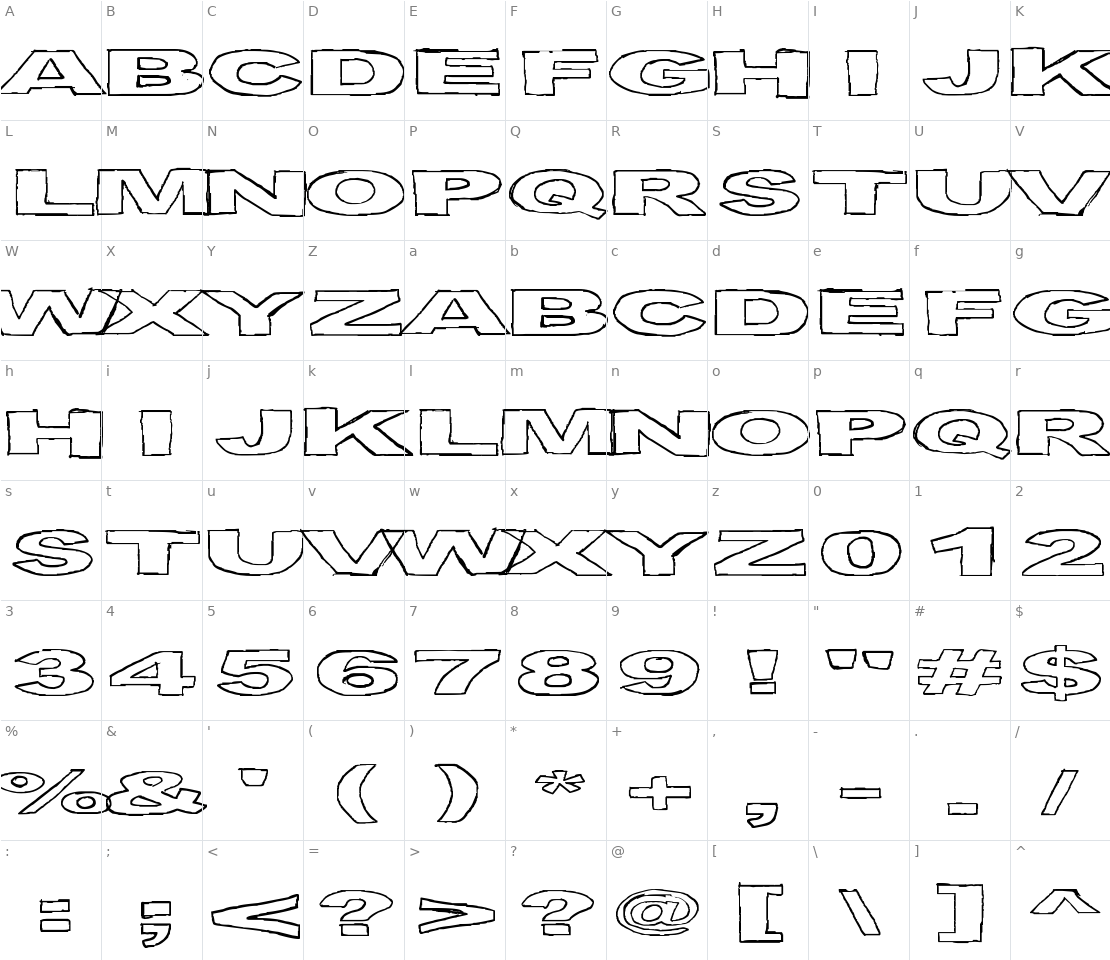
Birds Requiem
Birds Requiem is an uppercase outline face from junkohanhero with a loose, sketchy quality that makes each letter feel like it was drawn freehand with a shaky pen. The rough, unfinished strokes and visible imperfections give it genuine character, sitting comfortably between distressed and decorative. Best at headline sizes for posters, zines, or editorial work where a raw, hand-drawn texture matters more than clean precision.